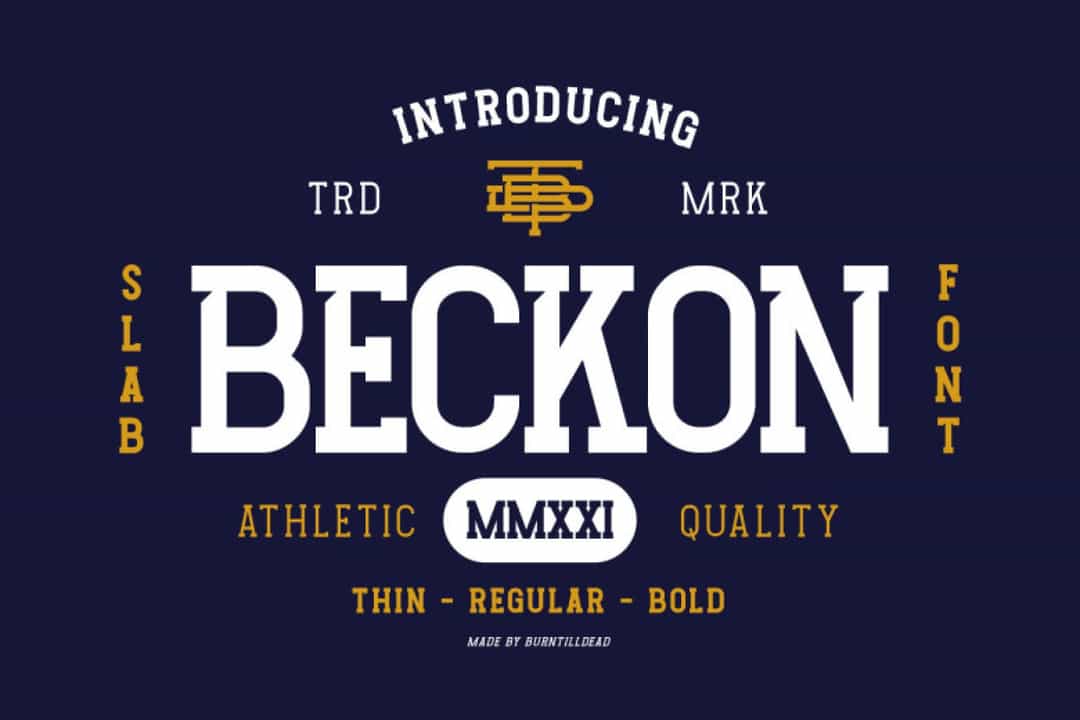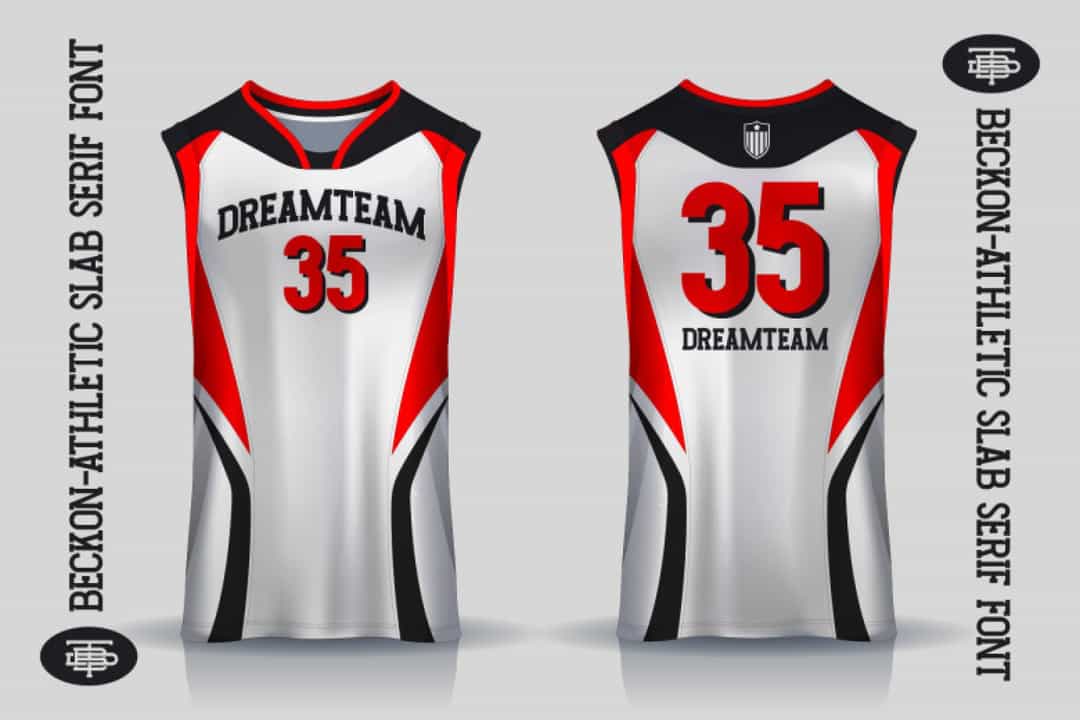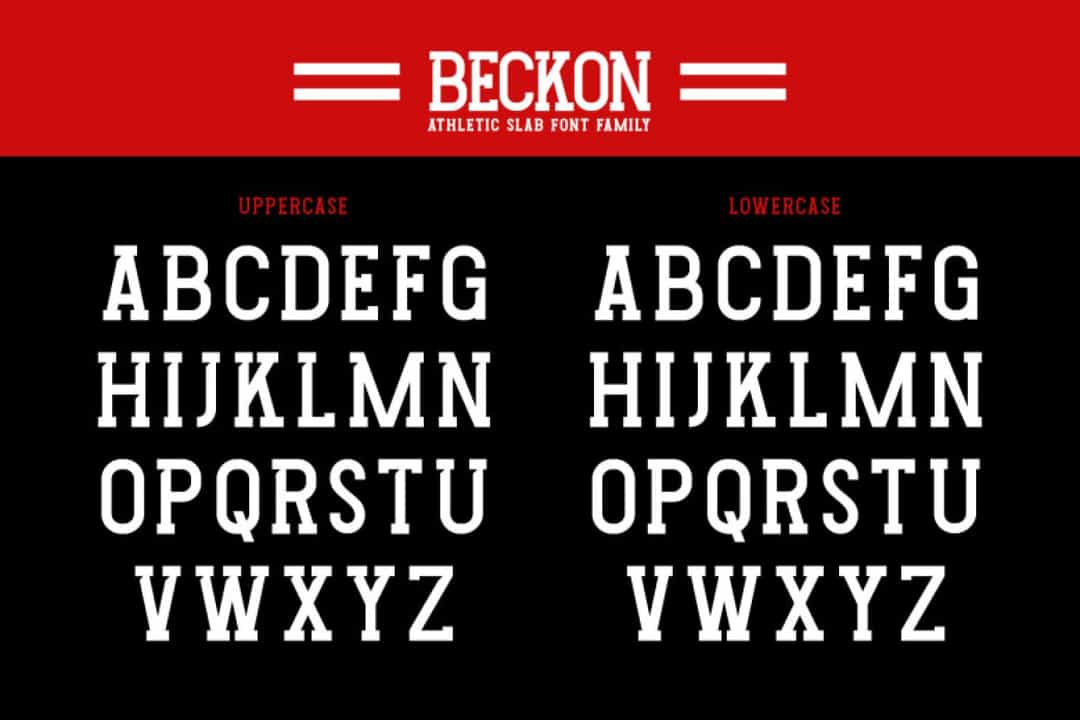
Beckon is a bold slab-serif font with thick letters. Perfect for designs depicting power or speed, add it to your designs with confidence and see the impressive results!